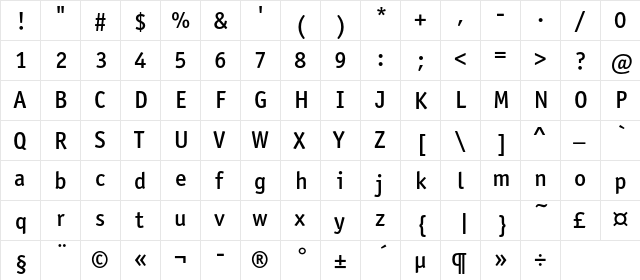
OfficinaSansMediumC Regular
Design Context for OfficinaSansMediumC Typeface
OfficinaSansMediumC takes a measured approach to typography — its balanced proportions and neutral character make it a reliable workhorse for both digital and print work.